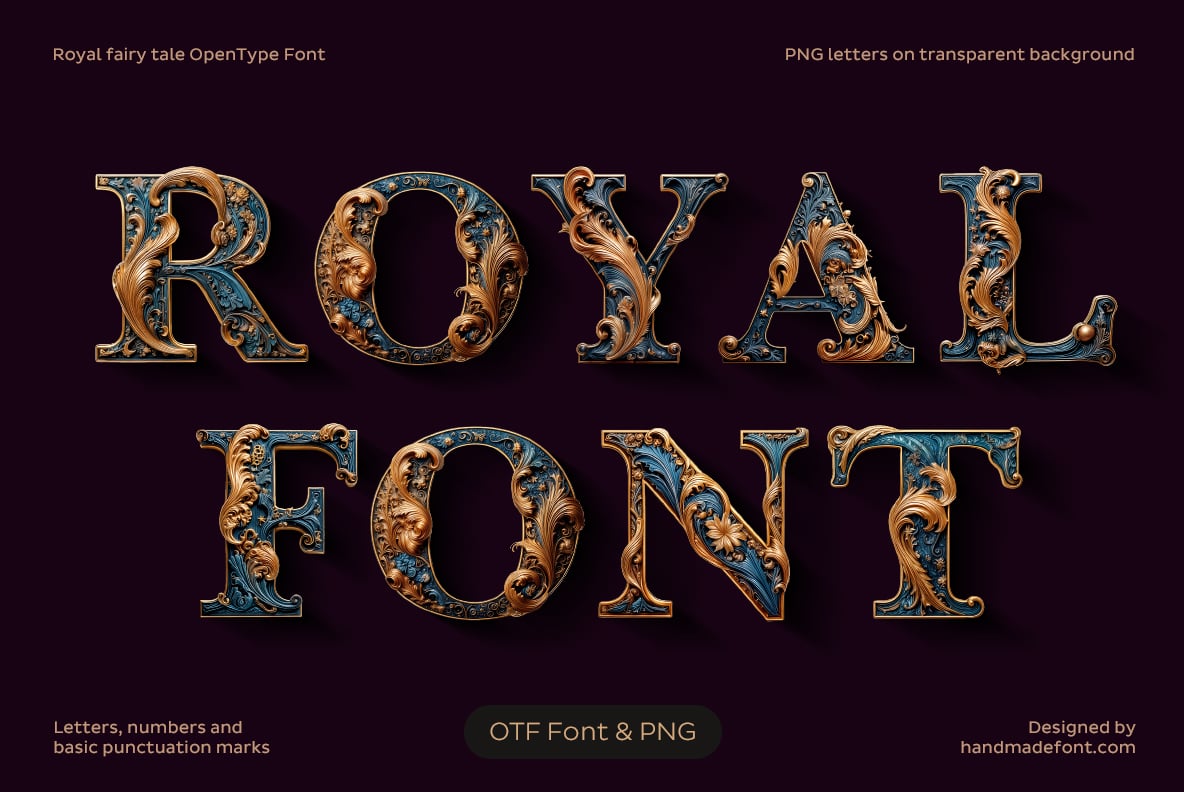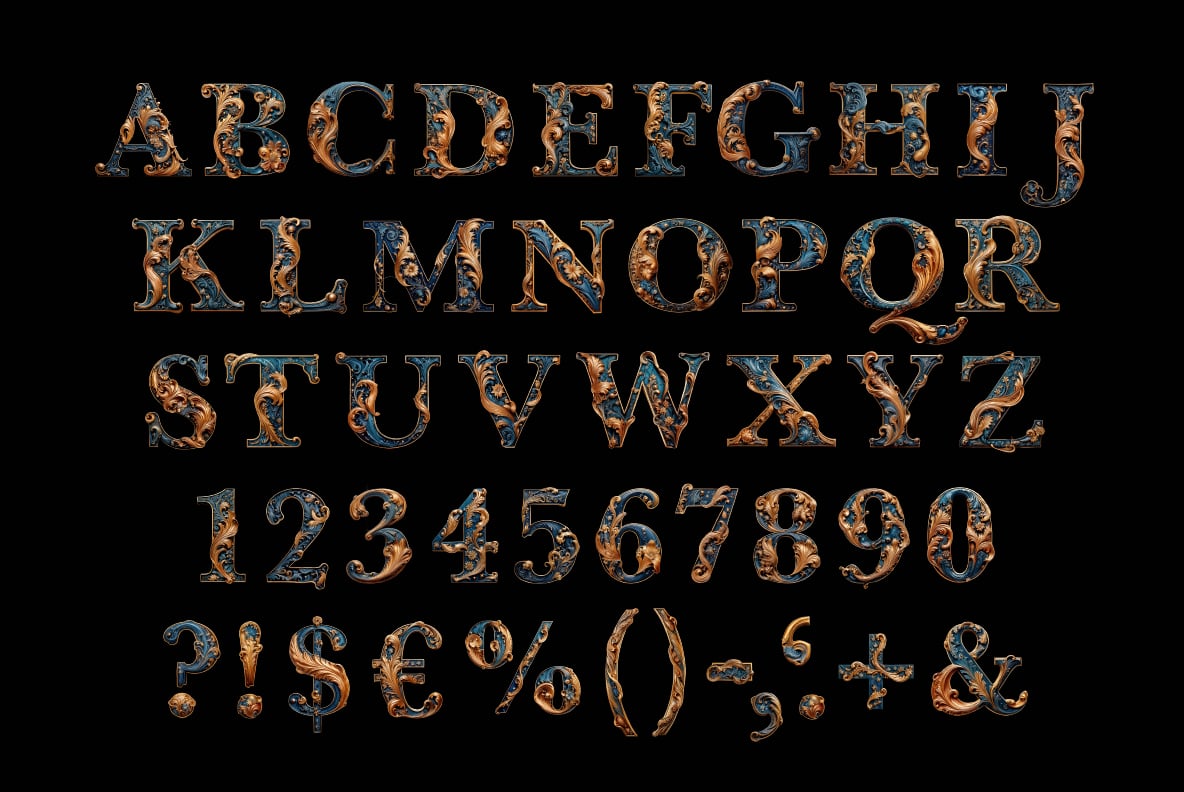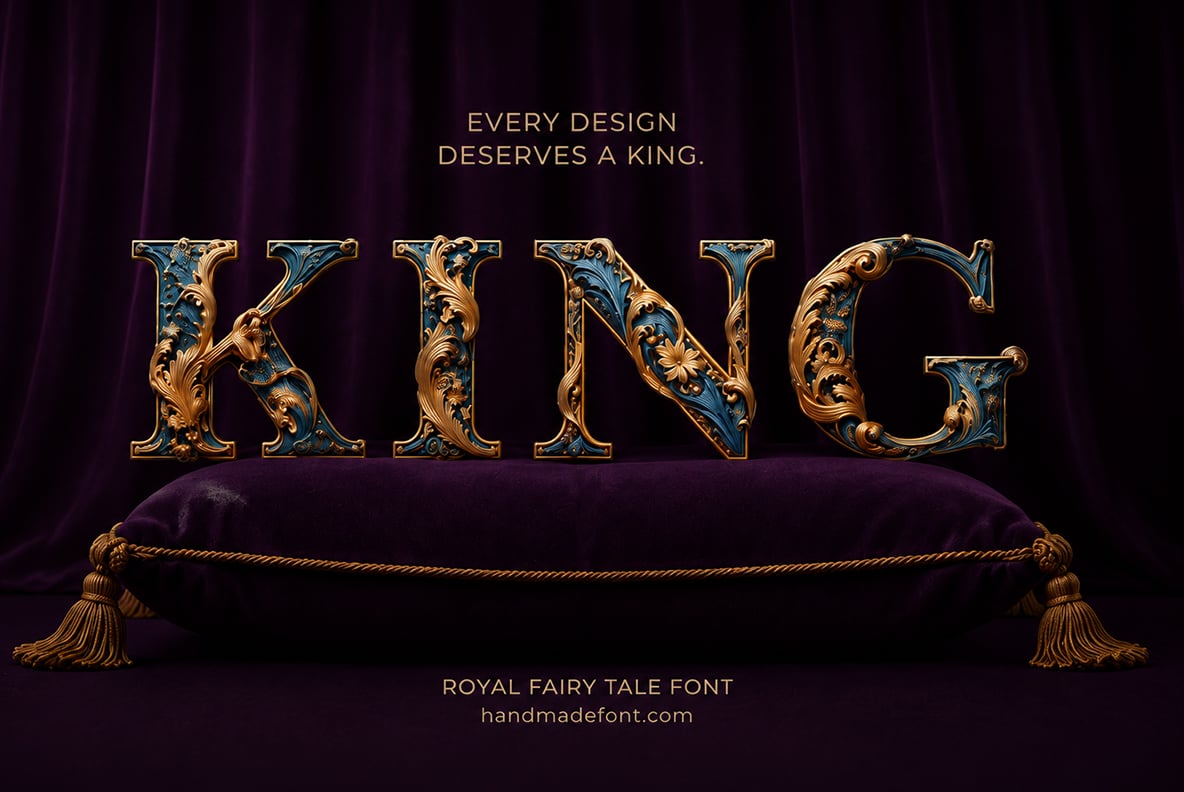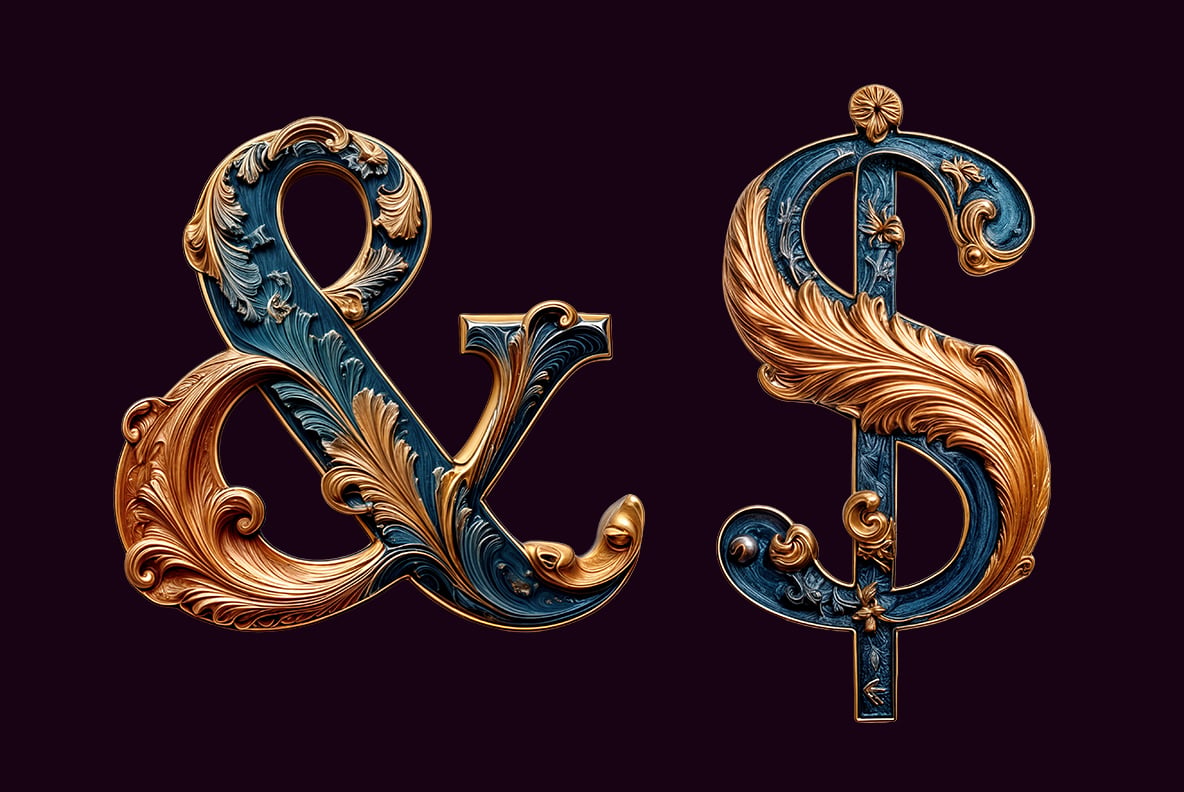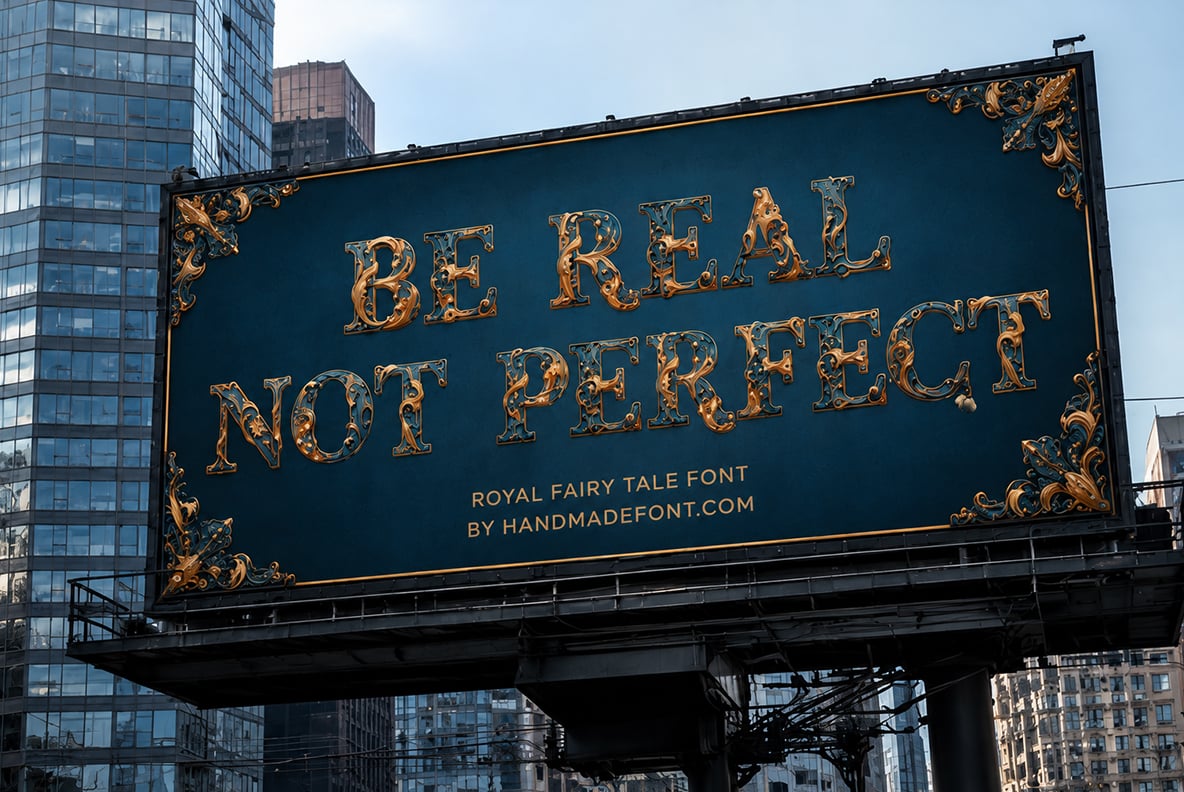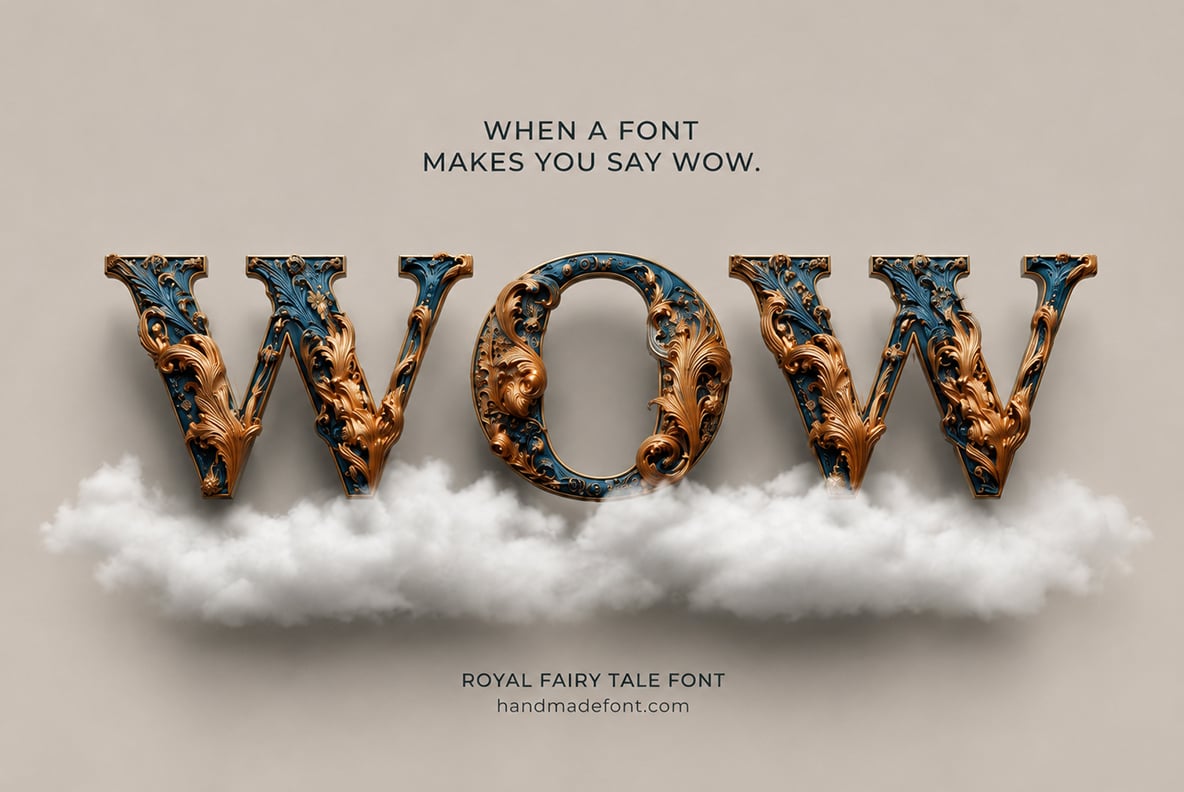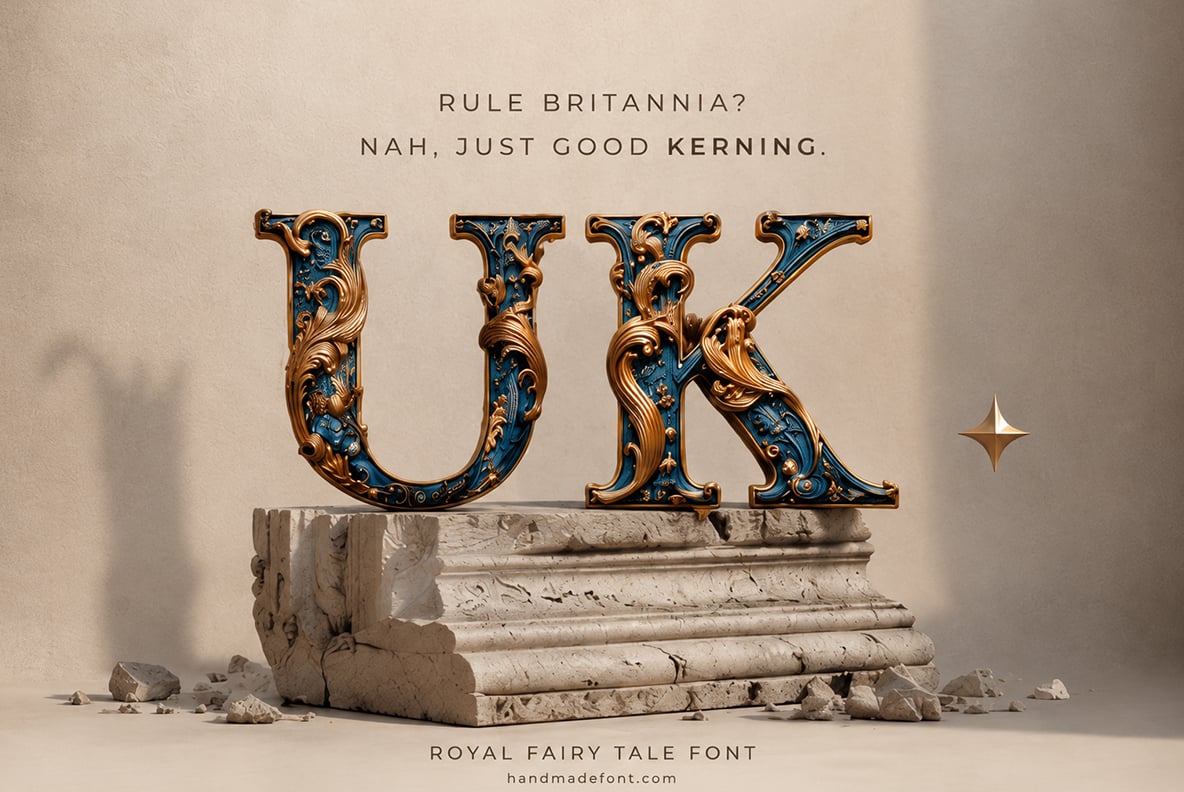
Royal Fairy Tale Font
**Royal Fairy Tale Font** is an elegant and highly decorative typeface inspired by enchanted kingdoms, royal palaces, and timeless fairy tale stories. Each character is crafted with intricate ornamental details, combining luxurious golden flourishes with deep blue vintage accents to create a truly majestic look. Perfect for book covers, fantasy branding, wedding invitations, packaging, posters, logos, social media graphics, and premium design projects. The package includes a fully functional OpenType (OTF) font for easy typing and design work, plus individual high-resolution PNG letters with transparent backgrounds for maximum creative flexibility. Royal Fairy Tale Font brings sophistication, magic, and aristocratic charm to every project.